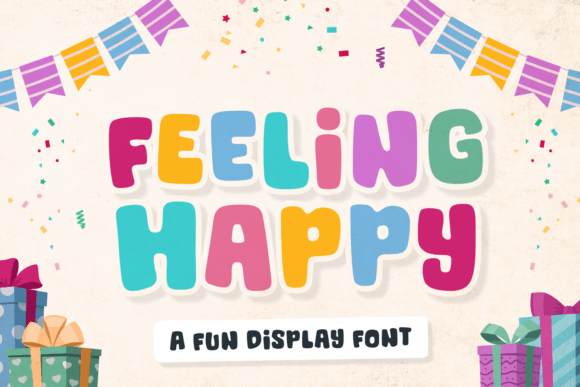
Discover the Joy of Feeling Happy Font: A Hand-Drawn Masterpiece
In the world of typography, fonts play a crucial role in conveying emotions and setting the tone for various designs. Among the numerous fonts available, Feeling Happy Font stands out as a beacon of joy and relaxation. This hand-drawn masterpiece is meticulously crafted to capture the essence of happiness, making it a perfect fit for kid-friendly themes and joyful events.
The Birth of Feeling Happy Font
Feeling Happy Font is a labor of love, designed to bring a smile to everyone’s face. Its creator aimed to craft a font that not only looks delightful but also feels joyful to read. Every curve and line in this font is carefully drawn to exude a sense of happiness and tranquility.
The design process involved a deep understanding of what makes people happy and how typography can contribute to that feeling. The result is a font that is not only aesthetically pleasing but also emotionally resonant.
The Whimsical Style of Feeling Happy Font
Feeling Happy Font boasts a whimsical style that is sure to capture the hearts of designers and readers alike. Its hand-drawn nature gives it a personal touch, making it perfect for designs that require a human and approachable feel.
The font’s whimsy is characterized by its playful curves, rounded edges, and carefree vibe. It’s as if each letter is hand-drawn with love and care, making it an ideal choice for kid-friendly themes, children’s books, and joyful events.
Capturing the Essence of Happiness
Feeling Happy Font is more than just a font – it’s an emotion. It captures the essence of happiness itself, breathing life into any design it’s used in. The font’s joyful vibe is infectious, making smiles spread and celebrations even brighter.
Whether you’re designing a poster for a children’s party, a greeting card for a friend’s birthday, or a website for a kids’ educational platform, Feeling Happy Font is the perfect choice. It’s guaranteed to add a dash of happiness and whimsy to your design.
Perfect for Kid-Friendly Themes and Joyful Events
Feeling Happy Font is specifically designed for kid-friendly themes and joyful events. Its playful and whimsical style makes it an ideal choice for:
- Children’s books and educational materials
- Kids’ party invitations and decorations
- Greeting cards and gift tags
- Websites and blogs focused on kids’ content
- Social media graphics and posts
The font’s joyful vibe is sure to appeal to kids and adults alike, making it a versatile choice for various design projects.
Bringing Life to Your Designs
Feeling Happy Font has the power to transform your designs into delightful stories. Each letter is carefully crafted to convey a sense of joy and happiness, making it perfect for:
- Headings and titles
- Body text and descriptions
- Captions and quotes
- Signs and posters
The font’s versatility and legibility ensure that it can be used in various design contexts, from digital to print.
Why Choose Feeling Happy Font?
There are numerous reasons why Feeling Happy Font stands out from the crowd:
- Unique and hand-drawn design
- Whimsical and playful style
- Perfect for kid-friendly themes and joyful events
- Captures the essence of happiness and relaxation
- Versatile and legible
By choosing Feeling Happy Font, you’re guaranteed to add a touch of joy and whimsy to your designs.
In conclusion, Feeling Happy Font is a hand-drawn masterpiece that captures the essence of joy and relaxation. Its whimsical style makes it perfect for kid-friendly themes and joyful events, while its versatility and legibility ensure that it can be used in various design contexts.